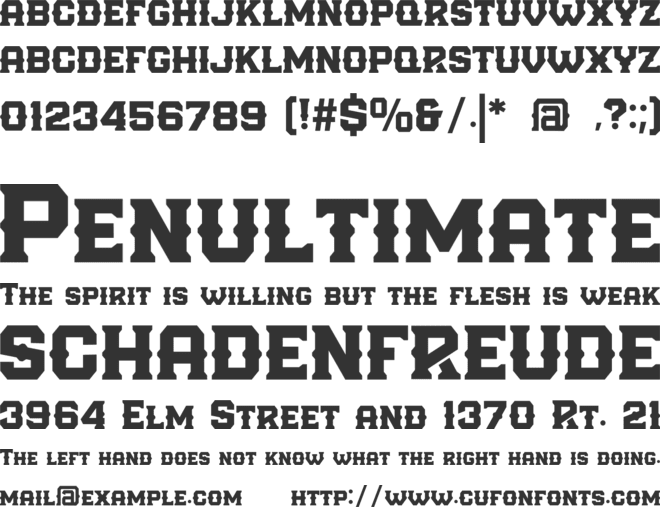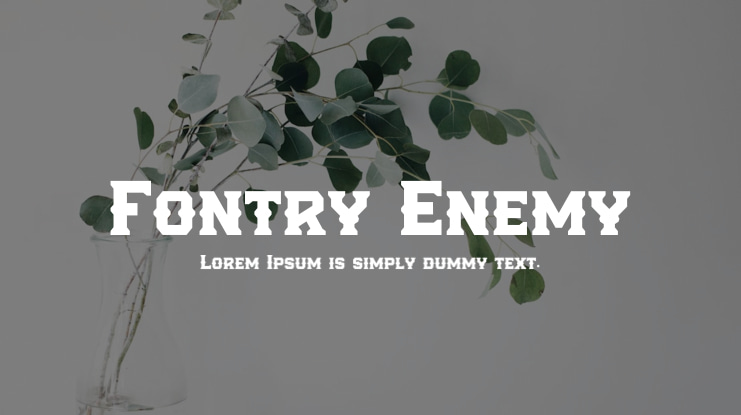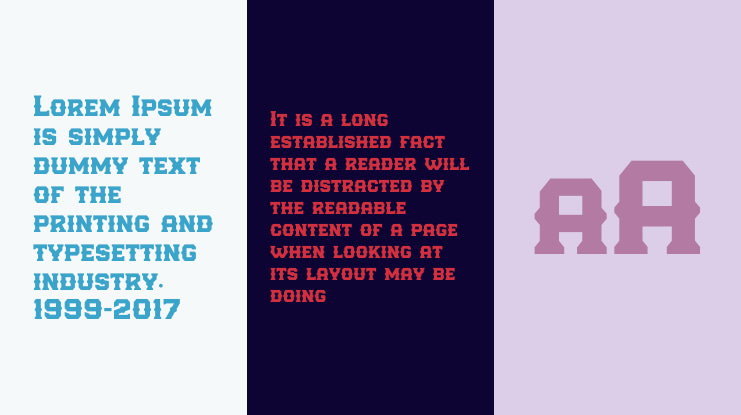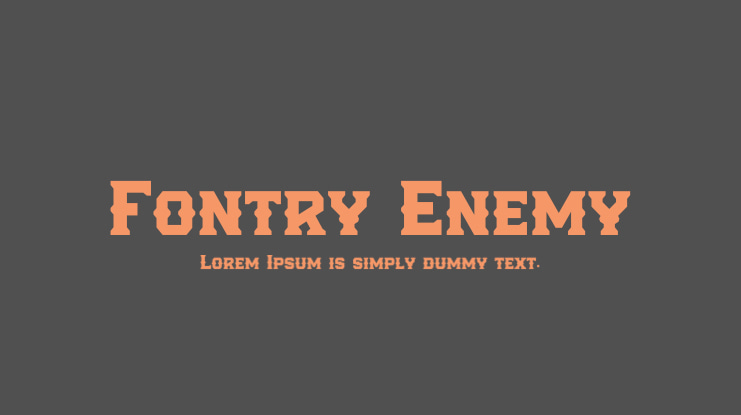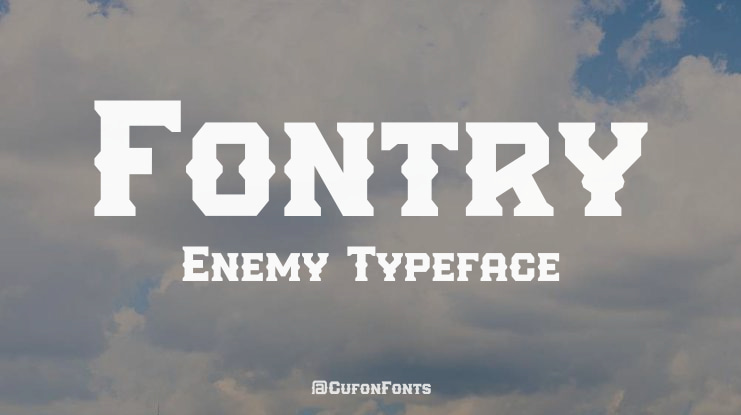
Fontry Enemy Font
The "Foremost" font embodies the elegance of Western style with a modern twist. Perfect for those aiming to add a touch of refinement and sophistication to their design projects, this font seamlessly blends classic Western elements with contemporary flair. Each letter exudes the strength and elegance synonymous with traditional Western aesthetics, making it an ideal choice for a variety of projects—from t-shirt designs to posters and stylish branding.
For even more creative expression, "Foremost" comes with complementary Western-themed vector elements, allowing you to craft unique and captivating designs. These vectors enhance your work's visual appeal, offering limitless creative possibilities.